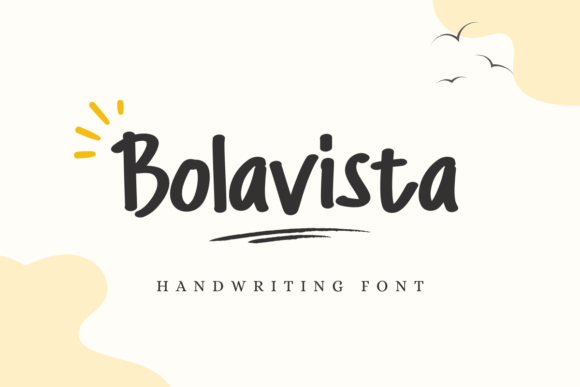
Journey into the Realm of Bolavista: A Handcrafted Brush Font Symphony
Enter the world of Bolavista, a meticulously crafted script font that embodies the essence of artistry and charm. Inspired by the elegance of hand-drawn strokes, Bolavista captures the raw beauty and authenticity of human touch. Each letter dances with a unique rhythm, emulating the organic flow of a skilled calligrapher's pen.
Immerse yourself in the intricate details of Bolavista. Its carefully drawn brush strokes possess a natural and expressive quality that adds depth and character to your designs. Whether you're crafting logos, invitations, posters, or social media graphics, Bolavista's organic charm breathes life into your creations.
Unleash your creativity with Bolavista. Its versatility knows no bounds. From whimsical and playful designs to sophisticated and elegant projects, Bolavista adapts seamlessly to your vision. Let your imagination soar as you explore the endless possibilities that this remarkable font holds.
Step into the spotlight with Bolavista. Its distinctive style commands attention, making your designs stand out from the ordinary. Embrace the power of individuality and let Bolavista elevate your projects to new heights of visual impact. Experience the transformative power of Bolavista today and embark on a journey of artistic expression like never before.